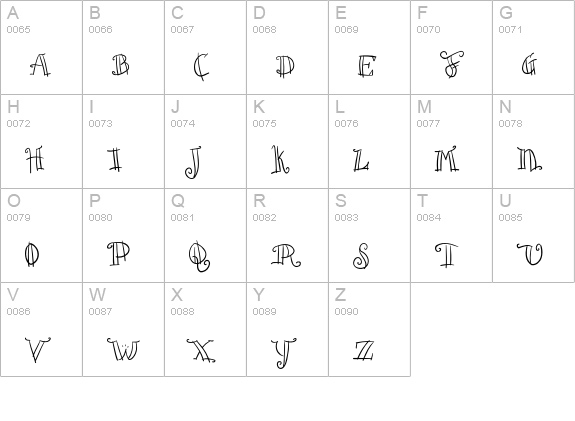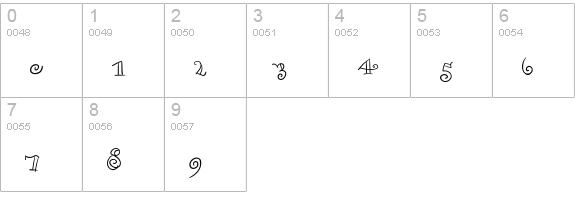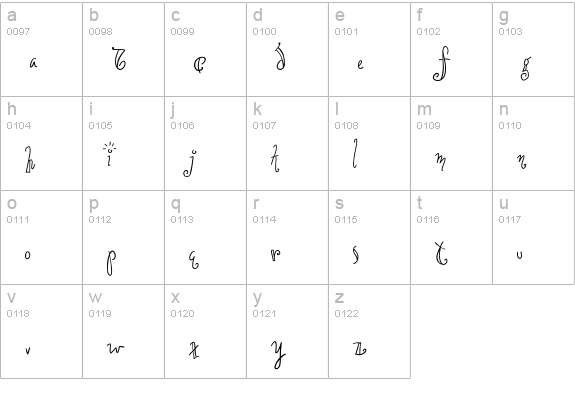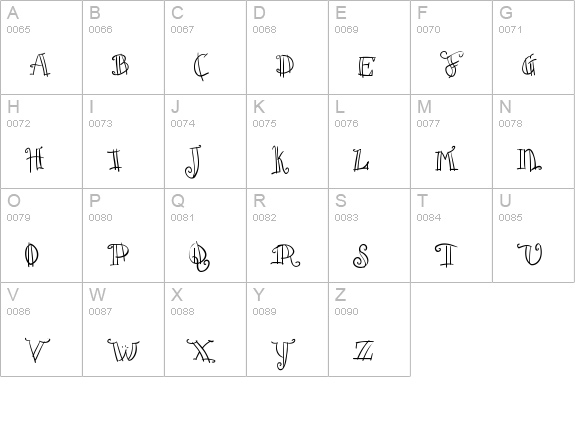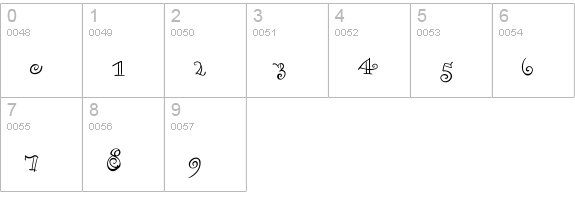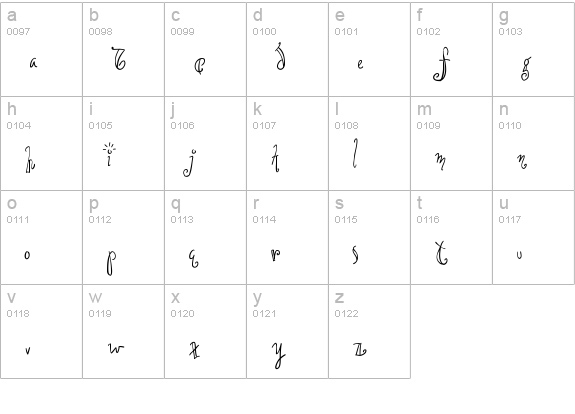
Croissant font is a delightful and versatile typeface that effortlessly blends sophistication with a touch of whimsy. Its elegant curves and stylish flourishes make it perfect for a wide range of design projects, from branding to editorial design. The Croissant font family includes a variety of weights and styles, giving you plenty of options to play with. What makes Croissant font even more appealing is that it is available for free download at FontsMarket.com. This means you can easily add this beautiful typeface to your collection without any cost. Whether you're working on a personal project or a professional assignment, Croissant font will surely elevate your designs and make them stand out. Download it today and start creating stunning typographic compositions with ease.